The Eras Tour font is more than just a typeface—it’s a key element of the visual identity behind one of the most iconic pop tours in history. With the rise of Swiftie fan art, lyric posters, and DIY merch, the demand for this vintage serif font has skyrocketed.
In this comprehensive guide, we’ll dive deep into the Eras Tour aesthetic, explore its unique font styles, and provide plenty of design inspiration to help you capture the essence of Taylor Swift’s iconic visual journey.
What Font Is Used in the Eras Tour?
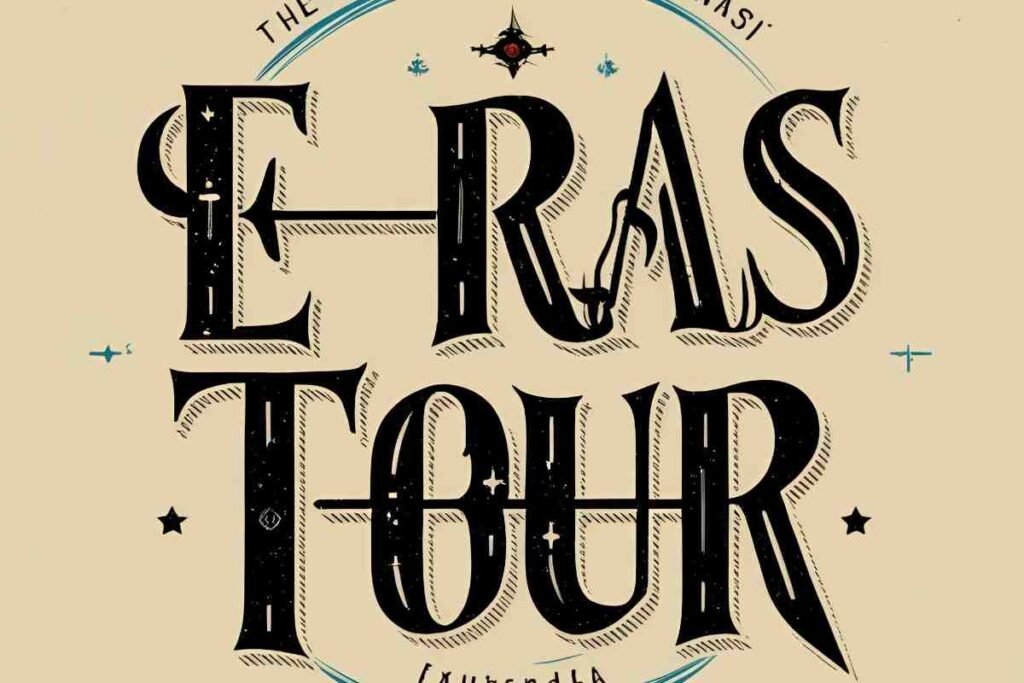
The primary Eras Tour font featured on Taylor Swift’s tour posters is Pistilli Roman. Known for its bold serifs and high-contrast strokes, this retro concert font captures the glamorous yet timeless vibe of the tour’s branding.
It aligns perfectly with the tour era aesthetics that span across Swift’s entire discography. While the original Pistilli Roman is a premium font, several free fonts like Eras Tour are available online for fan use.
Taylor Swift & The Eras Tour Context
The Taylor Swift Eras Tour isn’t just a concert—it’s a journey through every album era, each with its own visual and musical identity. This makes the Taylor Swift typography crucial in setting the tone.
From the Eras Tour album art to posters, merchandise, and even the stage visuals, font choices like Pistilli Roman reflect the nostalgic, maximalist theme. The Eras Tour poster font stands out for its theatrical, vintage flair, reminiscent of Broadway or Old Hollywood.
If you’re creating fanmade Taylor merch or digital art, understanding this aesthetic helps keep your designs cohesive and true to Swiftie design elements.
Using the Eras Tour Font in Design Projects
The versatility of the Eras Tour serif font makes it perfect for many design applications. In Canva, it’s easily editable and drag-and-drop friendly. The Eras Tour font for Cricut is ideal for iron-on vinyl for Swiftie shirts. It’s also great for t-shirt designs, offering a bold, vintage touch.
For DIY merch, it adds personality to notebooks, banners, or tote bags. You can even use the Eras Tour template font for Instagram story templates or Reels. The font’s bold serif typeface ensures that your creations are readable and visually striking—exactly what you want in fan art or tour-inspired visuals.
Design Tips: Mastering Taylor Swift Typography
To stay true to the Taylor Swift graphic design aesthetic, try combining the Eras Tour font with soft pastel backgrounds or jewel tones depending on the album era. Incorporate Swiftie design elements like stars, hearts, or 1989-style Polaroids.
Use layered typography to mirror album era design trends. Keep your layouts clean with emphasis on typographic poster design for an editorial feel. This approach honors the iconic tour visuals while letting your creativity shine.
Typography and Pop Culture Branding
Typography is a powerful part of pop culture branding. Just like Coca-Cola or Disney have instantly recognizable fonts, Taylor Swift’s tour font has become a symbol of her evolution as an artist. Each era from country sweetheart to synth pop queen has its own vibe.
The Eras Tour font pulls them together into a single, bold visual statement. Using fonts that evoke nostalgia and glamour like Pistilli Roman or Ralphie helps creators participate in this cultural movement through design.
Conclusion
The Eras Tour font is more than just type—it’s a symbol of artistic legacy, nostalgia, and fan creativity. Whether you’re a designer, DIY enthusiast, or just a Swiftie looking to make lyric posters, understanding the visual DNA of the Eras Tour will elevate your work.
By using fonts like Pistilli Roman and its alternatives, you can bring the magic of the tour into your own projects, from Eras Tour font for Cricut crafts to Instagram edits and beyond.
What is the actual Eras Tour font name?
The primary font used is Pistilli Roman, a bold serif typeface known for its vintage elegance.